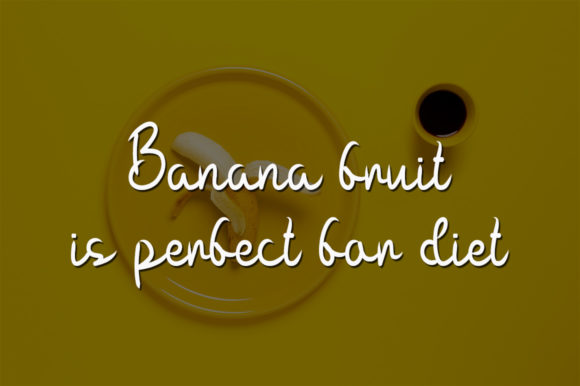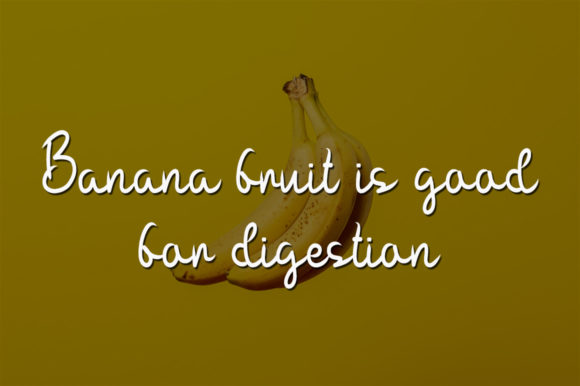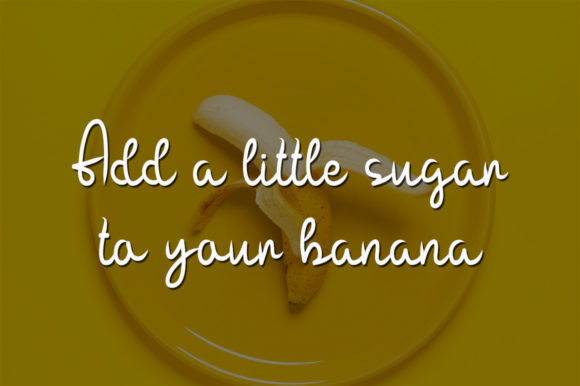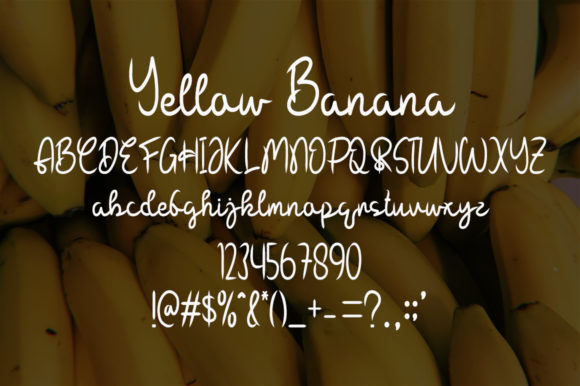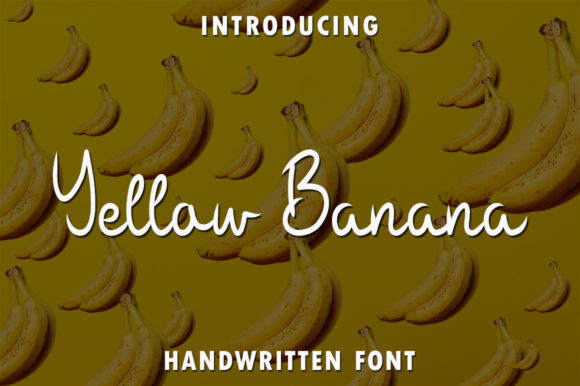
Yellow Banana Font
About Yellow Banana Font
Yellow Banana is a delightful and cursive handwritten font that exudes sweetness and charm. With its gentle and flowing style, it adds a touch of elegance and playfulness to any design. This font is versatile and can be used in a wide range of creative projects, allowing you to express your ideas with a joyful and romantic flair.
The smooth and cursive letterforms of Yellow Banana create a graceful and inviting look. Its soft curves and connected strokes give the font a sense of harmony and fluidity. This makes it perfect for adding a touch of sophistication to wedding invitations, love letters, greeting cards, and other romantic-themed designs.
The gentle and romantic nature of Yellow Banana makes it an excellent choice for expressing emotions and sentiments. Whether you’re creating personalized quotes, heartfelt messages, or sentimental designs, this font adds a touch of warmth and tenderness to your words.
Yellow Banana’s versatility extends beyond romantic designs. It can also be used to enhance various other projects, such as branding, packaging, social media graphics, and more. Its cursive nature adds a sense of uniqueness and personality, making your designs stand out and leave a lasting impression.
Additionally, Yellow Banana’s legibility ensures that your message is conveyed clearly and effectively. The well-designed letterforms and balanced spacing make it easy to read, even at smaller sizes. This makes it suitable for a wide range of applications, from headlines to body text.
In summary, Yellow Banana is a sweet and cursive handwritten font that brings joy, romance, and elegance to your designs. Its gentle and flowing style adds a touch of charm and sophistication to a variety of projects, from wedding invitations to social media graphics. Embrace the beauty of Yellow Banana and let it infuse your designs with a delightful and romantic touch.